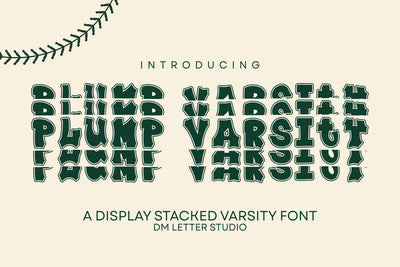
Plump Varsity Stacked Font
Meet Plump Varsity Stacked Font
Plump Varsity Stacked Font blends classic college spirit with friendly bubble energy, then optimizes it for tight, vertical layouts. Rounded strokes feel bold and approachable. Even spacing keeps stacked words clear on shirts, hoodies, pennants, stickers, banners, water bottles, and thumbnails. Use it for chants, jersey names, team slogans, and school store merch. Because the rhythm is tuned for compact lines, you can fit BIG messages into small spaces without losing impact.
Why creators love this stacked varsity stacked font
First, it shouts team pride and still looks fun. Next, it cuts cleanly for Cricut, Silhouette, and laser projects. Then it layers beautifully with outlines and drop shadows, so two-color effects take minutes. As a result, you can ship unified drops—locker labels, booster-club decals, pep-rally posters, and e-sports overlays—using one consistent style.
Ready for gear, posters, and posts
HYPE / MODE, GAME / DAY, or GO / TIGERS lock together neatly for reels and product mockups.
Plump Varsity Stacked in action
Jersey names, stacked numbers, and mascot slogans
Spirit week banners, stair riser graphics, hallway signs
Graduation caps, senior night gifts, and tournament brackets
Channel art, scoreboard scenes, and stream thumbnails
Clean curves tuned for vinyl, print, laser, DTF, and sublimation
Design tips for all-star stacks
Keep phrases short and punchy. Tighten line spacing to emphasize the stack. Add a thick offset or inner fill for instant jersey vibes. Try high-contrast duos like navy & white, black & neon, maroon & cream, or forest & gold. Finally, export at 300 DPI for print and 2× size for web to keep edges smooth everywhere.